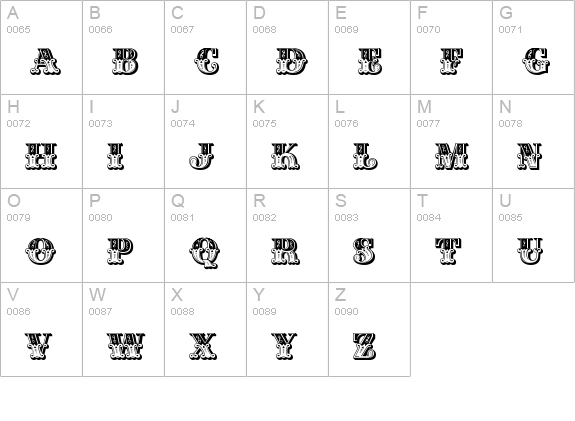
Home Style font is a charming and versatile typeface that embodies the essence of cozy and inviting home decor. With its elegant and stylish design, this font is perfect for adding a touch of warmth to your projects. Whether you are creating invitations, greeting cards, or branding materials, Home Style font will bring a sense of comfort and familiarity to your designs. Best of all, Home Style font is available for free download at FontsMarket.com. Now you can easily enhance your projects with this beautiful font without breaking the bank. Don't miss out on the opportunity to add a touch of homey charm to your designs with Home Style font.